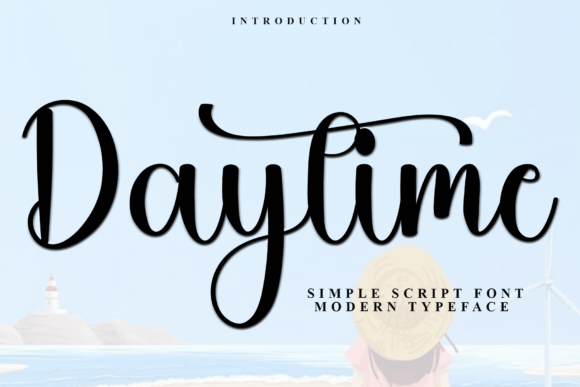
Introducing Daytime Font: A Beautiful and Versatile Typeface
In the world of typography, a font can make all the difference in the success of a design project. A well-crafted font can elevate the visual appeal of a piece, making it more engaging and memorable for the audience. One such font that has caught the attention of designers and creatives is Daytime Font. In this article, we’ll explore the unique features and benefits of Daytime Font, and why it’s becoming a popular choice for various design projects.
The Unique Characteristics of Daytime Font
Daytime Font is a beautiful and eye-catching typeface designed with a soft, unique touch. Its distinctive strokes give it a special character, making it meaningful and versatile for future use. The font’s creator has carefully crafted each letter to have a distinctive feel, setting it apart from other fonts in the same category. The softness of the font makes it perfect for designs that require a subtle yet elegant touch.
Key Features of Daytime Font
- Unique and Distinctive Strokes: Daytime Font’s strokes are designed to be unique and distinctive, giving the font a special character that sets it apart from other fonts.
- Soft and Elegant Touch: The font has a soft and elegant touch, making it perfect for designs that require a subtle yet sophisticated look.
- Versatile and Meaningful: Daytime Font is designed to be versatile and meaningful, making it suitable for a wide range of design projects and creative works.
- Variety of Characters: The font comes with a variety of characters, making it perfect for designs that require a range of typography options.
Uses of Daytime Font
Daytime Font is perfect for a wide range of design projects, crafts, and other creative works. Its versatility and unique character make it an excellent choice for:
- Design Projects: Daytime Font is ideal for various design projects, including brochures, posters, and business cards.
- Crafts: The font’s unique character makes it perfect for craft projects, such as handmade cards, scrapbooking, and DIY crafts.
- Creative Works: Daytime Font is suitable for various creative works, including photography, illustration, and digital art.
Benefits of Using Daytime Font
Using Daytime Font can bring several benefits to your design projects and creative works. Some of the benefits include:
- Enhanced Visual Appeal: Daytime Font’s unique character and soft touch can enhance the visual appeal of your designs, making them more engaging and memorable.
- Increased Versatility: The font’s versatility makes it suitable for a wide range of design projects and creative works, allowing you to experiment with different typography options.
In conclusion, Daytime Font is a beautiful and versatile typeface that offers a unique and distinctive touch to design projects and creative works. Its soft and elegant touch, versatility, and compatibility with various applications and platforms make it an excellent choice for designers and creatives. Whether you’re working on a design project, craft, or creative work, Daytime Font is sure to enhance your visual appeal and bring your ideas to life.